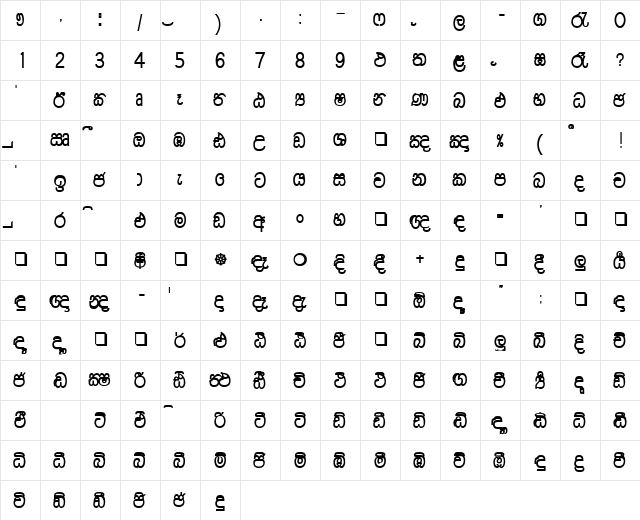
DL-Malathi. Plain.
Design Context for DL-Malathi. Typeface
DL-Malathi. offers clean, dependable letterforms without strong stylistic allegiance, making it a practical choice for designers who need flexibility.